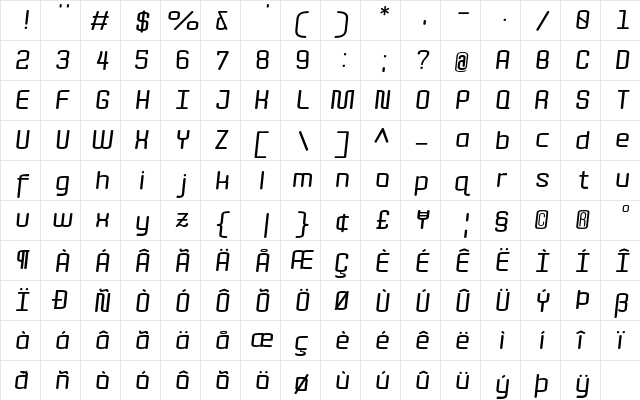
Quota Bold Italic Ext.
| Designer | Ryan Hellyer Williamson |
Design Context for Quota Typeface
Quota is a composed and adaptable typeface that performs quietly and consistently across a wide range of design contexts. The dynamic lean of this cut emphasises speed and emphasis in any layout. Its bold stroke weight gives it real presence on the page.
Pro Tip: Try Quota for annotation and caption copy alongside an upright companion — the contrast in angle creates a dynamic but ordered typographic system.